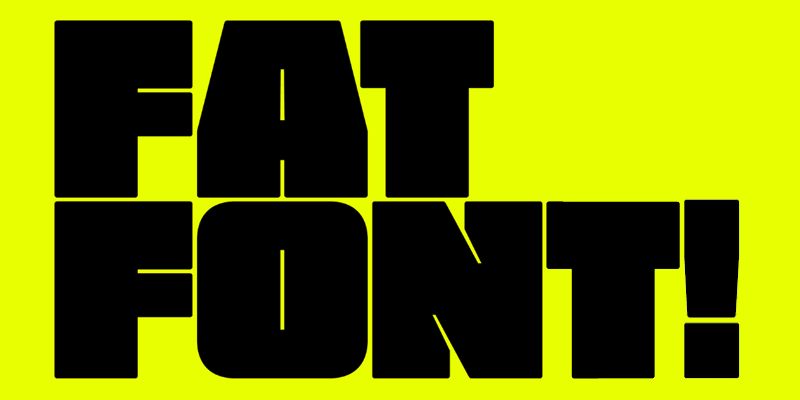
FatFont: Heavy Weight Typeface (OTF)
A cool font with an extremely heavy weight perfect for big titles, advertising, labeling, packaging and anything that needs a big impactful typeface. It also features multilingual characters and many unique glyphs and symbols for increased usability. Created by Behance user Thom Niessink.